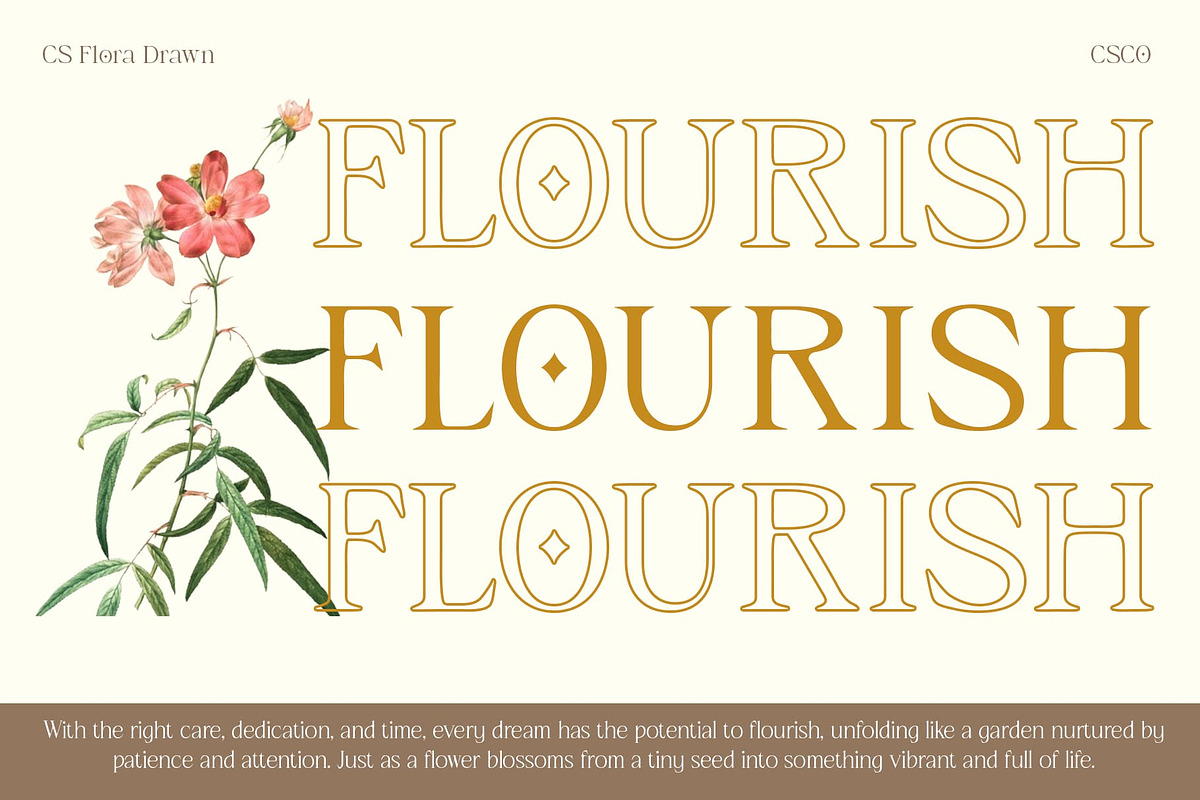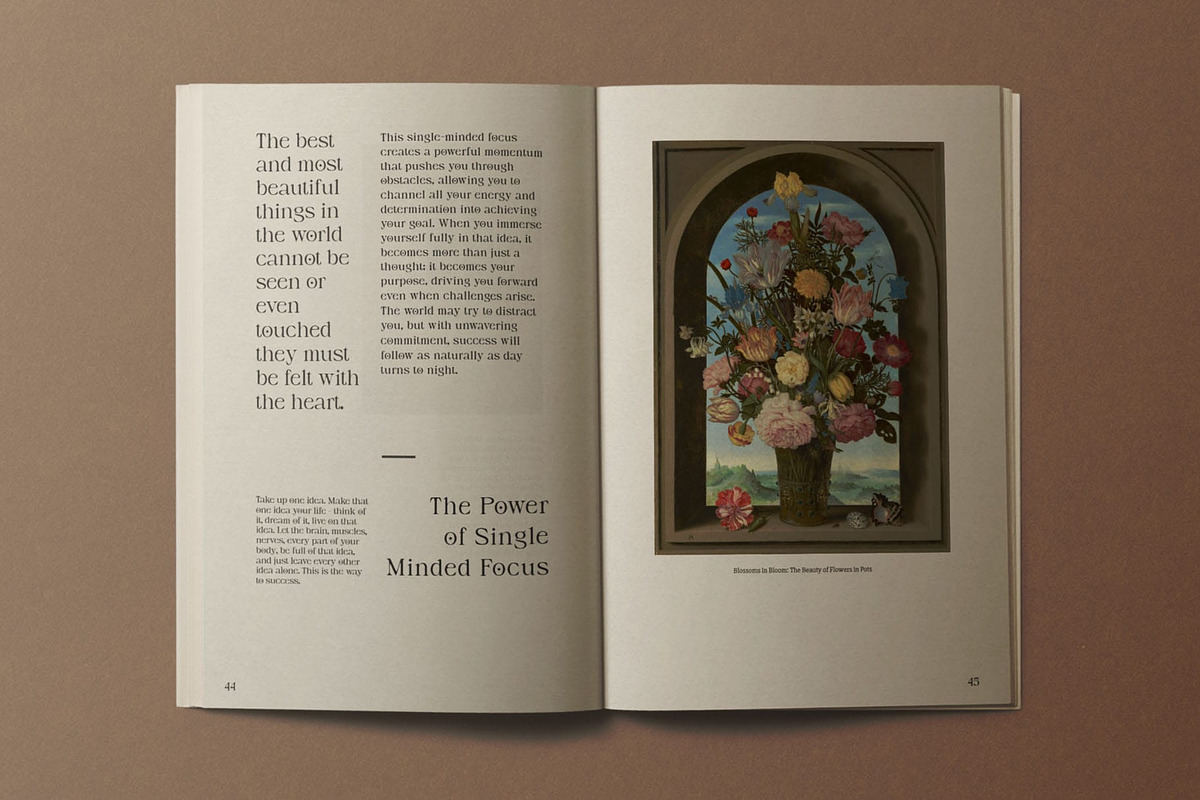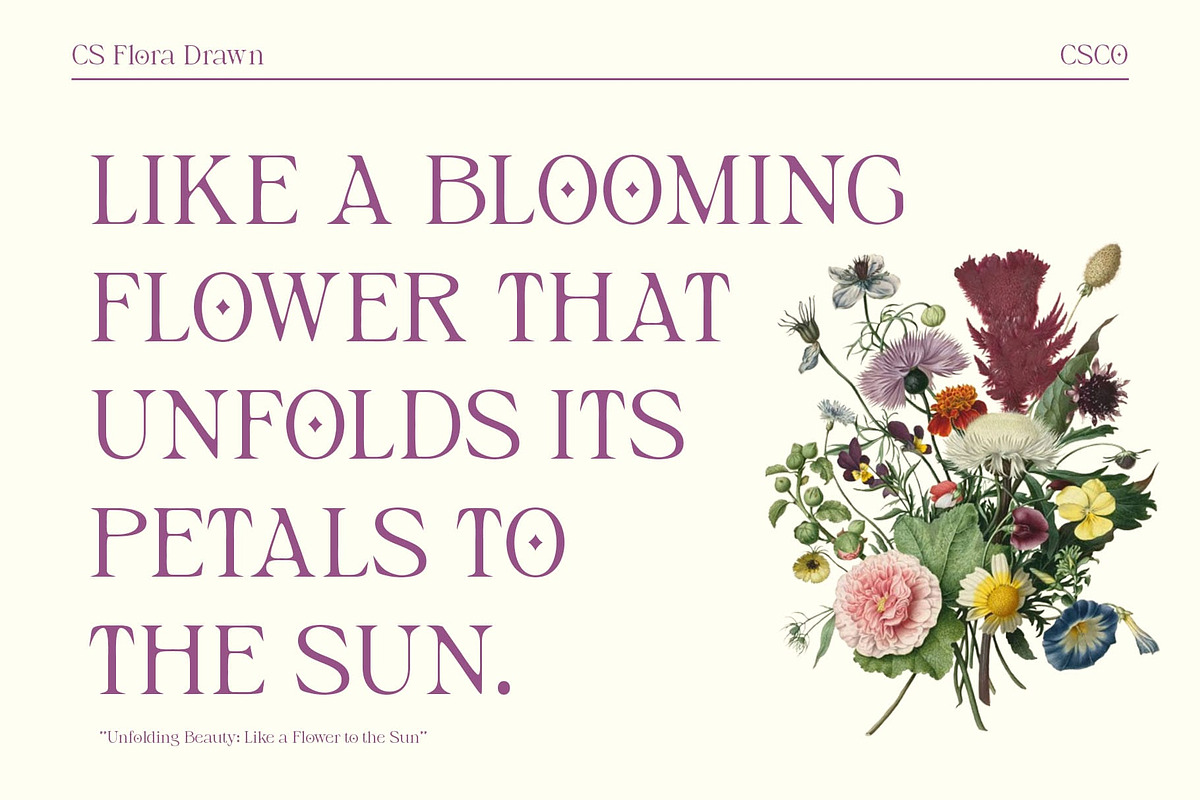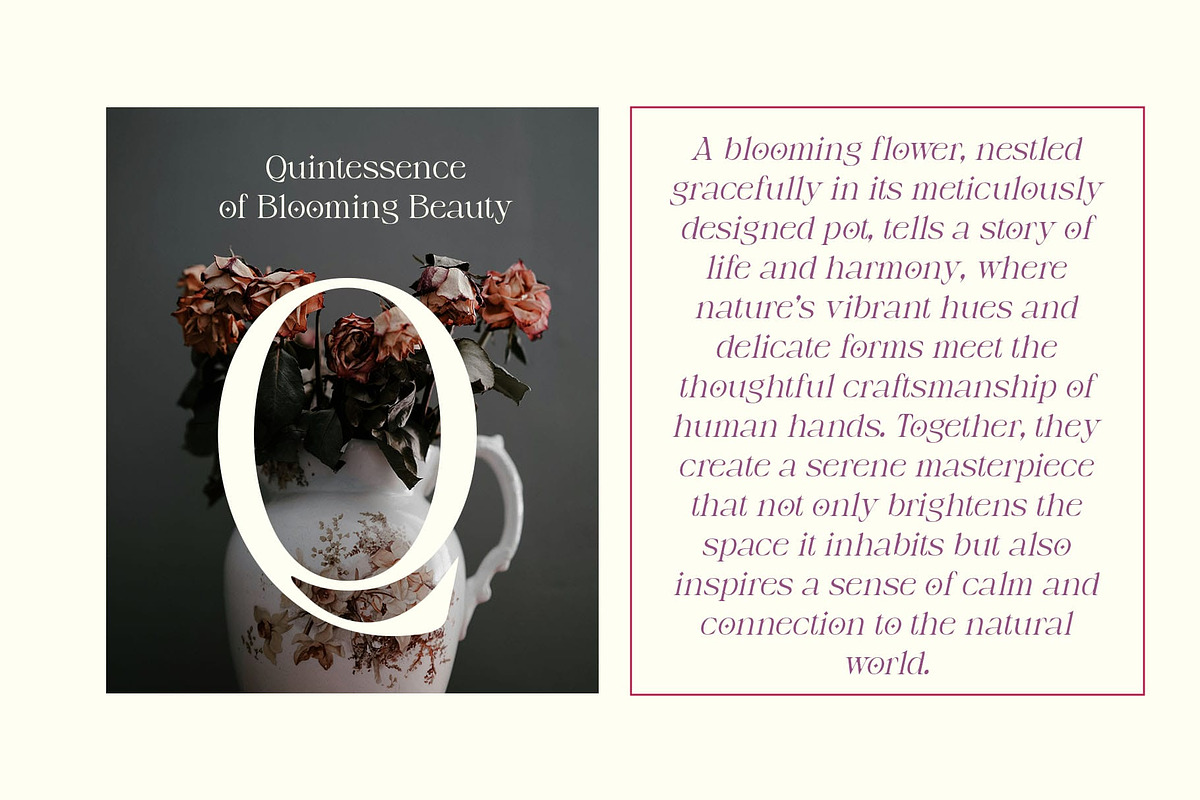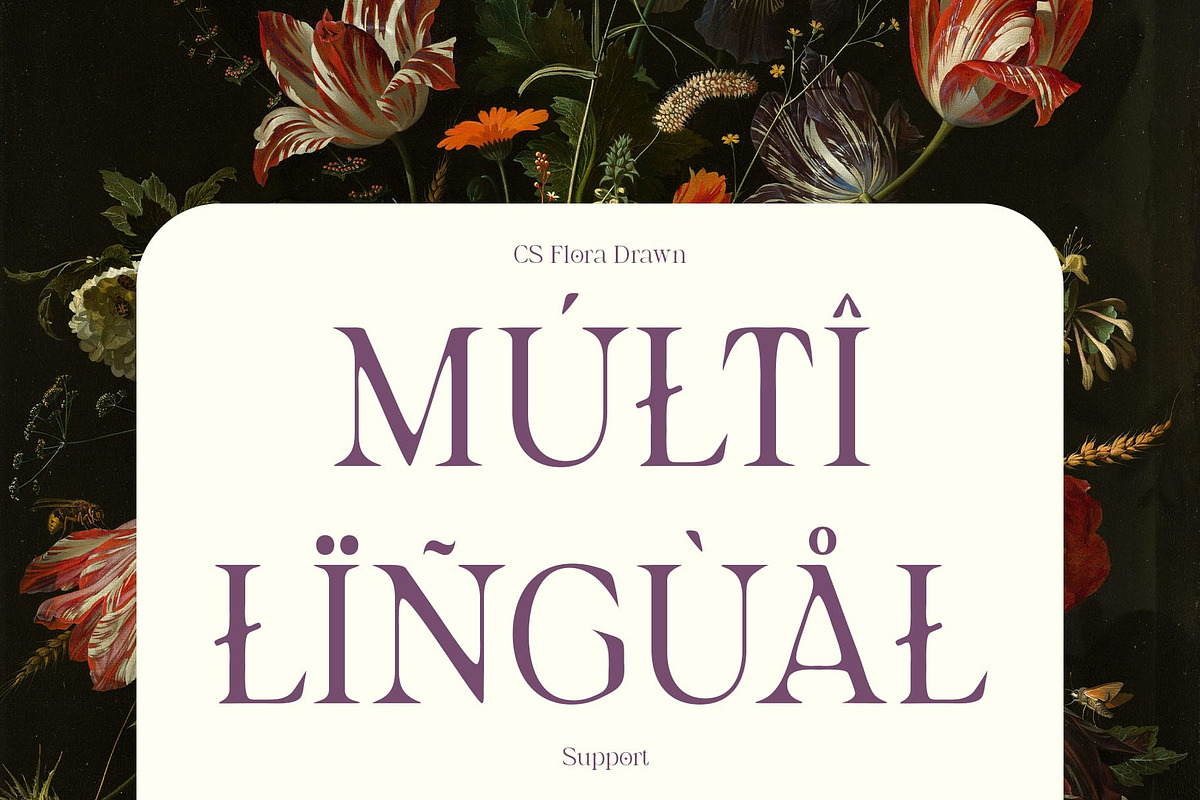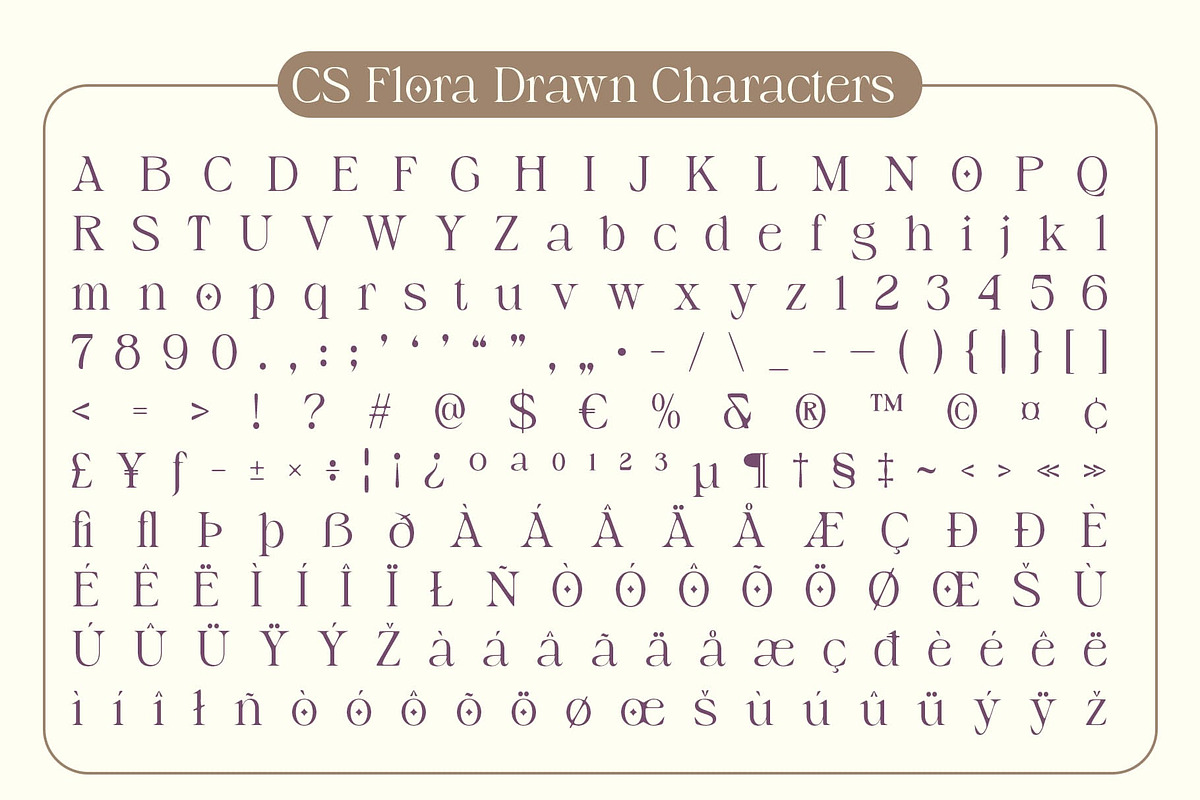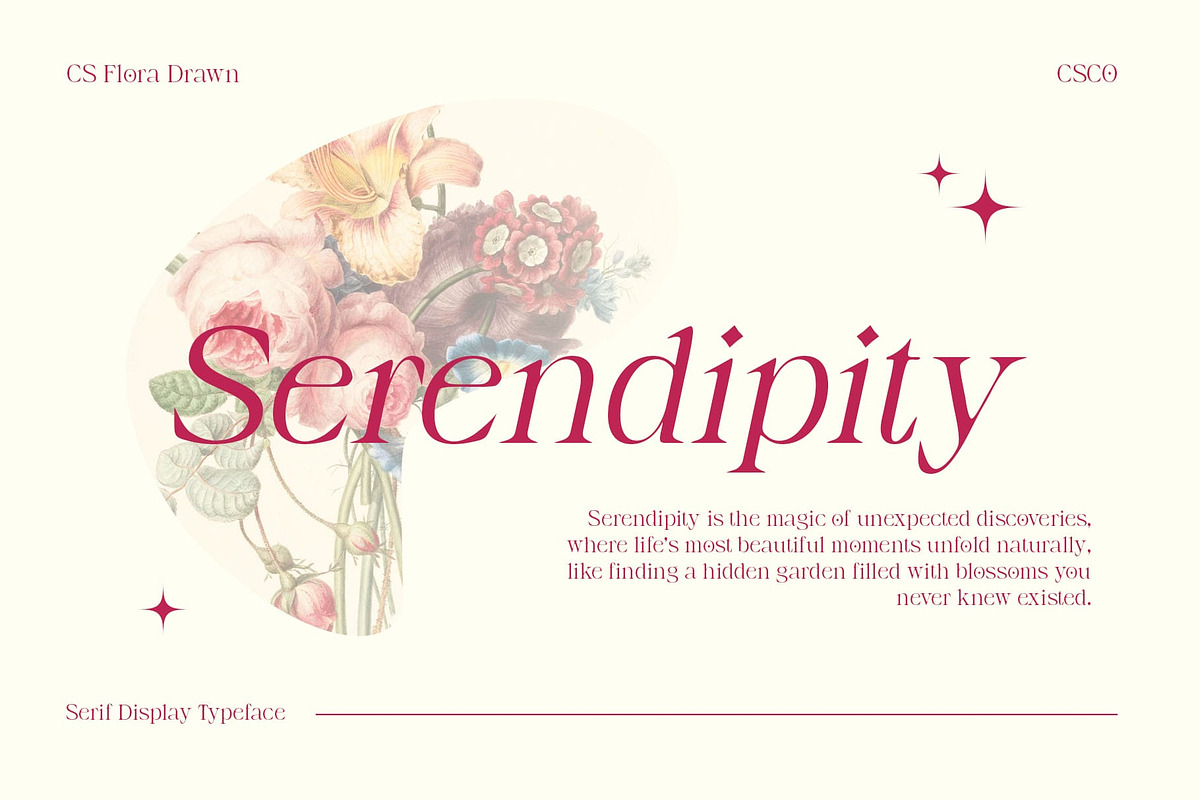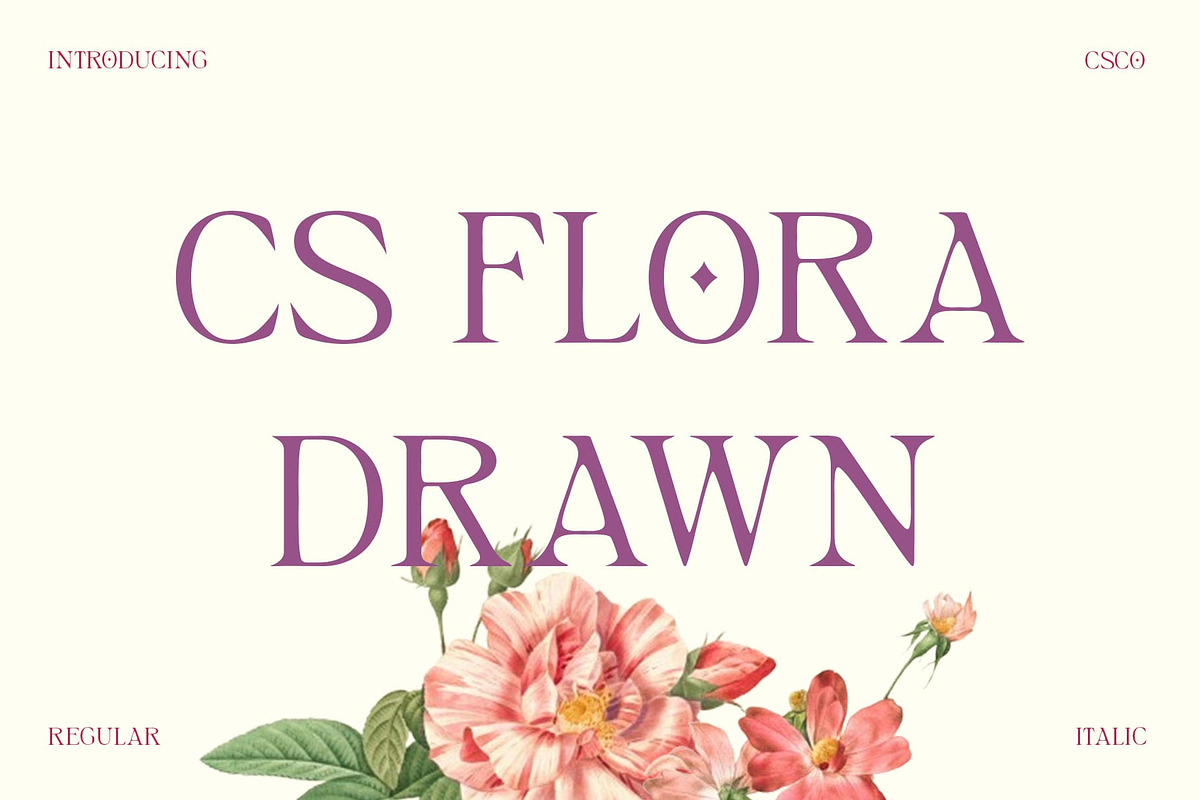
CS Flora Drawn
CS Flora Drawn – Elegant Hand-Drawn Serif Font
Refined Elegance Meets Artistic Charm This is a modern serif font that combines timeless elegance with an artistic, handcrafted touch. Its refined letterforms are complemented by a subtle hand-drawn effect, blending sophistication with creativity. This unique combination creates a font that exudes both beauty and originality, making it perfect for projects that demand a high-end, artistic feel.
Sophisticated Design with a Personal Touch The design of this drawn font showcases sleek, graceful letterforms, each carefully crafted to provide a sense of harmony and refinement. The hand-drawn elements add a distinctive character, infusing the font with an organic, handcrafted quality. This combination of precision and artistry gives the font an inviting, yet elevated vibe, ideal for high-end projects that require both style and a unique, personalized touch.
Timeless Beauty for Modern Designs This font offers a timeless beauty that can elevate a variety of design projects. The classic serif structure lends a sense of tradition and elegance, while the hand-drawn accents introduce a sense of creativity and individuality. This makes the font perfect for designs that aim to blend both classic sophistication and artistic flair. From high-end fashion publications to elegant branding and editorial designs, this drawn font brings an artistic yet refined feel to any creative endeavor, ensuring a sophisticated and unique visual impact.